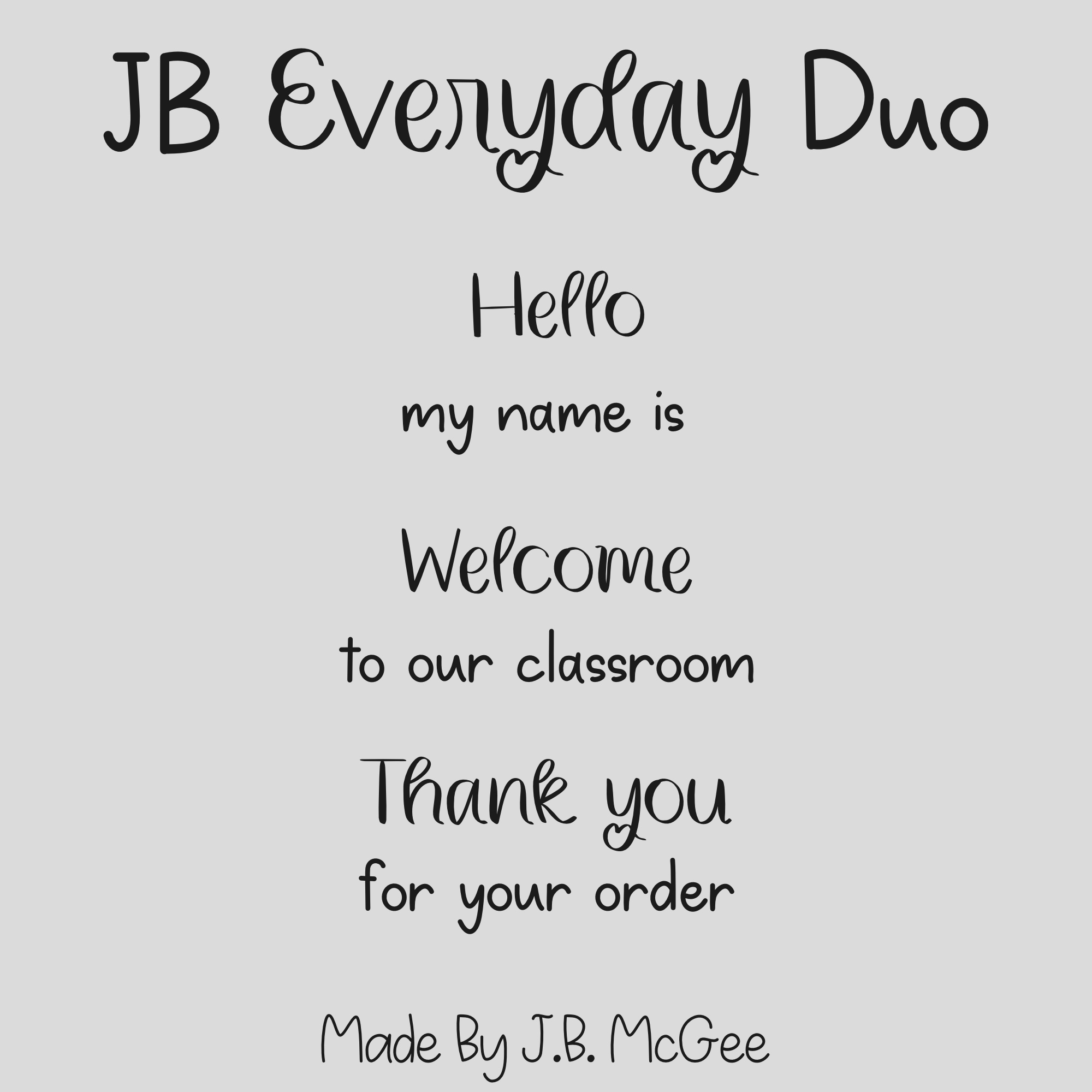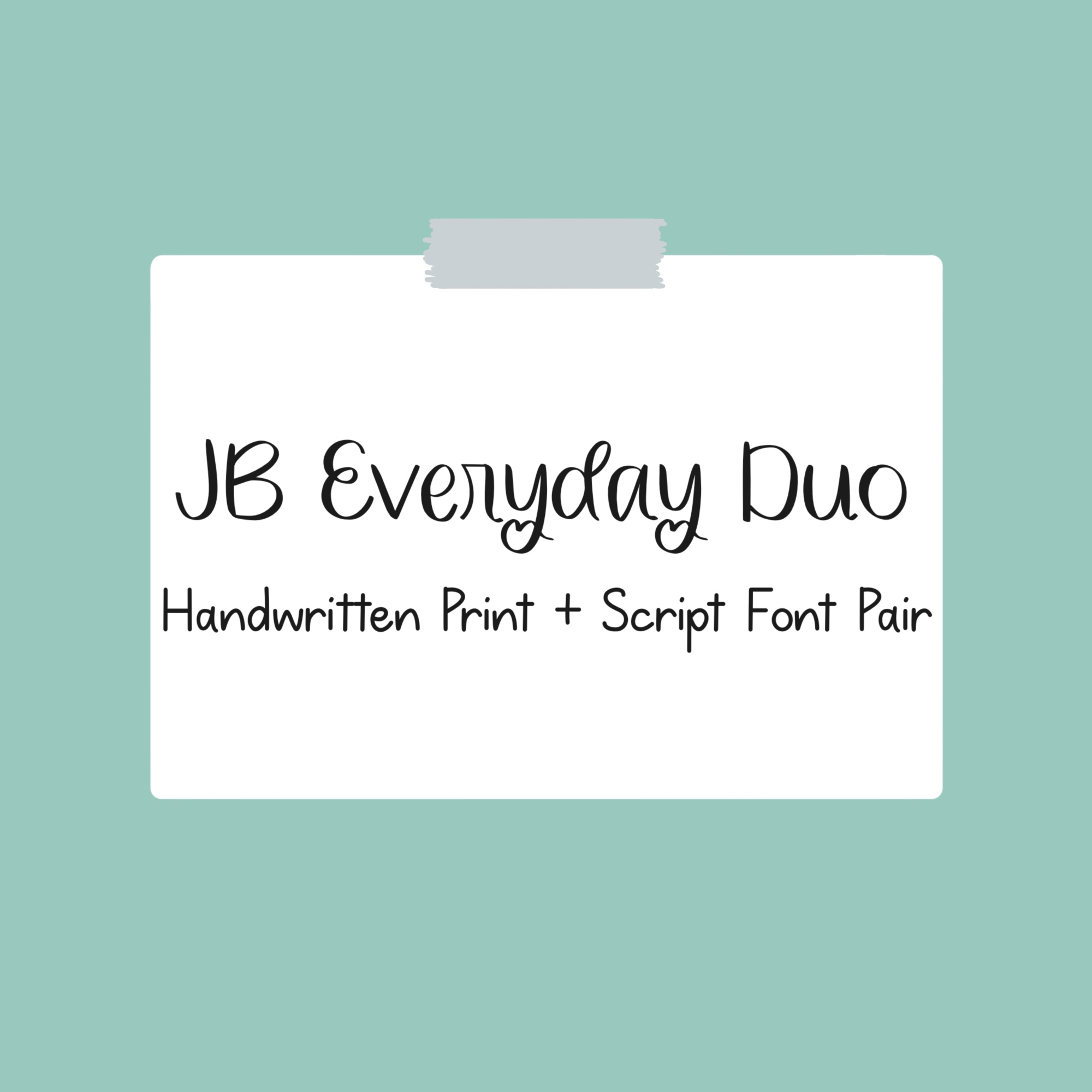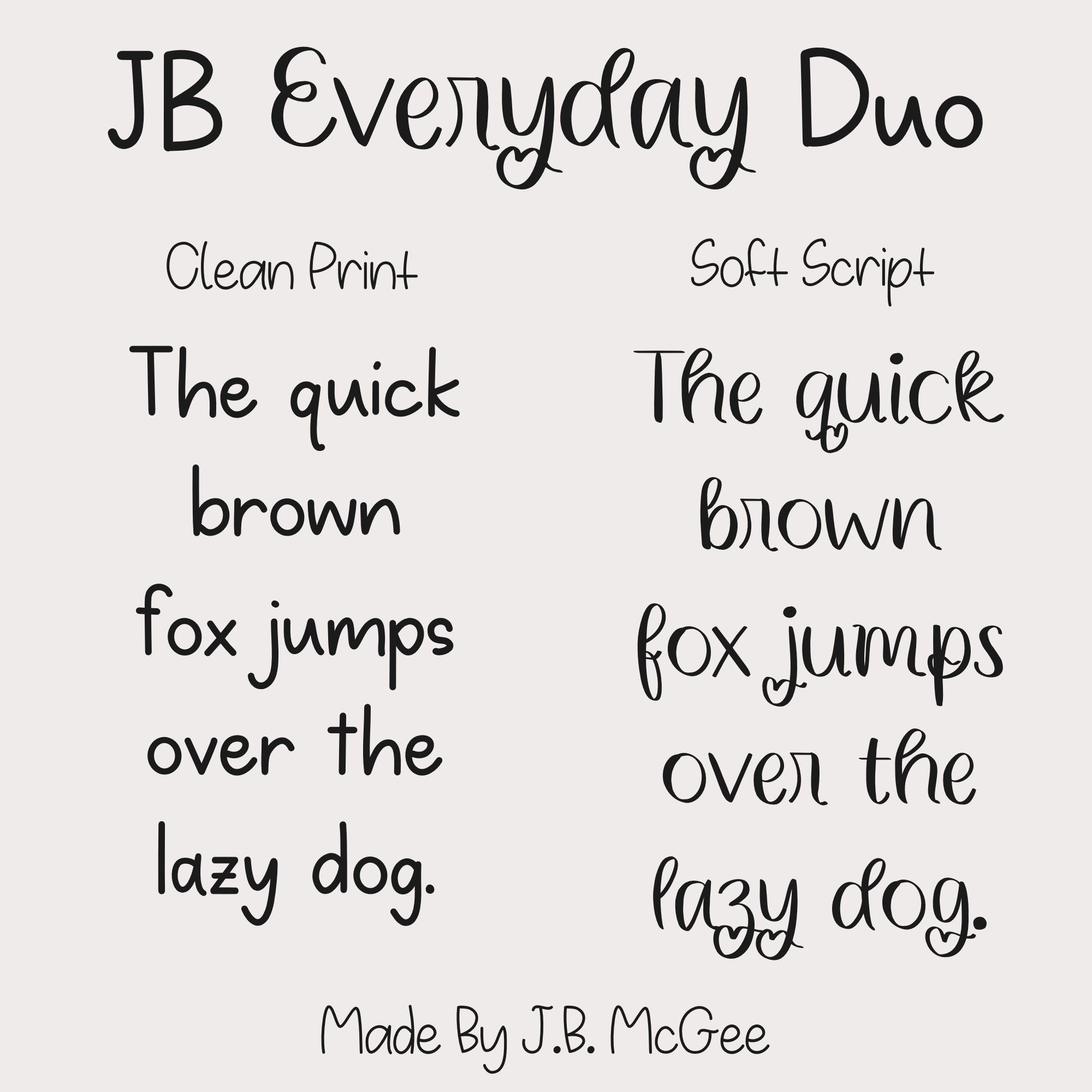
JB Everyday Font Duo
Handwritten Print + Script Font Pair
JB Everyday Duo is a versatile handwritten font pairing that combines a clean print font with a natural script, designed to work seamlessly together across everyday projects.
The print font (JB Everyday Hand) is simple, clear, and easy to read, making it perfect for body text, worksheets, and practical designs. The script font adds a soft, personal touch, giving your work just enough personality without feeling overdone.
Together, they create a balanced, ready-made pairing you can use without having to search for matching fonts.
What’s included:
• JB Everyday Hand (clean handwritten print)
• JB Everyday Script (casual handwritten script)
• Uppercase and lowercase letters
• Numbers and punctuation
• Extended characters (accents and symbols)
Perfect for:
• Teachers and classroom materials
• Worksheets and educational resources
• Small business branding and packaging
• Social media graphics
• Invitations and stationery
• Cricut and cutting machine projects
• Stickers and printables
Why this duo works:
• Clean print font for readability
• Script font for warmth and personality
• Designed to pair naturally without extra effort
• Simple, flexible, and easy to use
JB Everyday Duo is made for real projects where you want a handwritten look that still feels clean, consistent, and dependable.